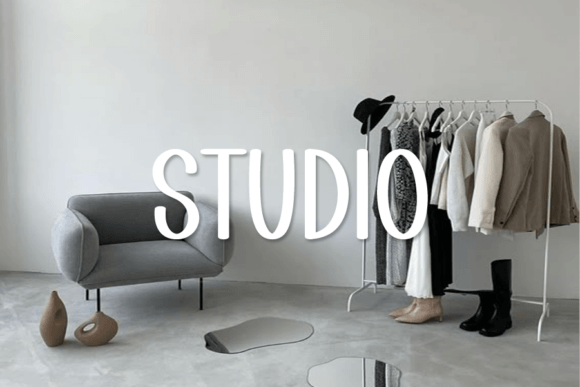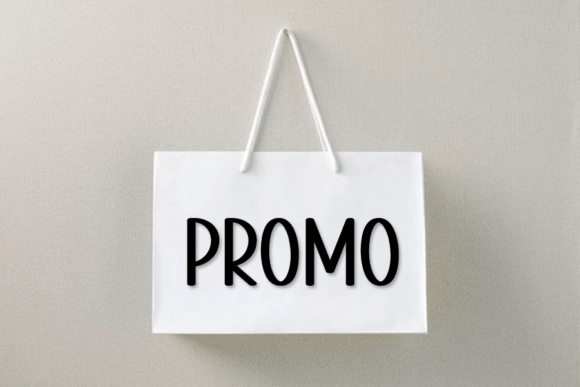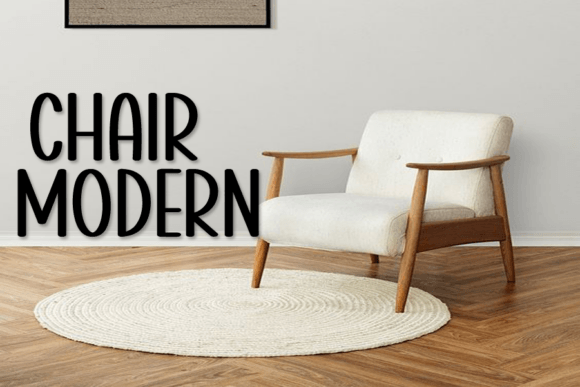
Introduction to Reguler Handmade Font
Reguler Handmade is a classic and simple handwritten script, created in a random and free style.
It is suitable for logotype, headline font, in corporate identity, brand identity, apparel industry, poster, music, movie, game, magazine, book, comic, cartoon, YouTube, Instagram, website, or any of your creative design projects .